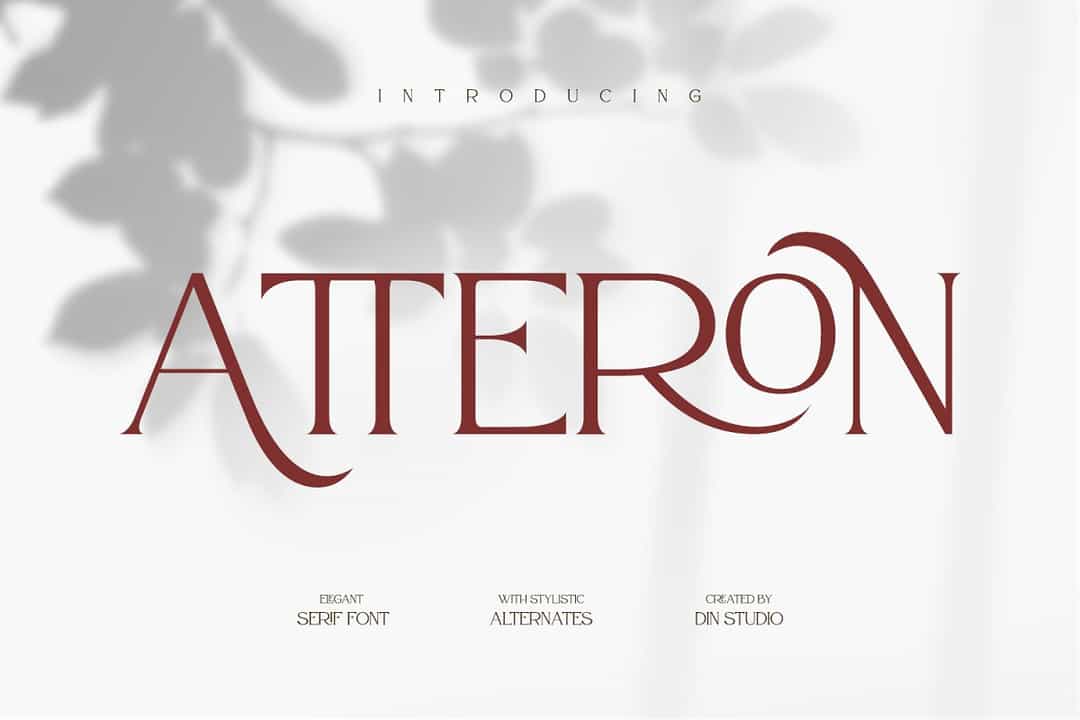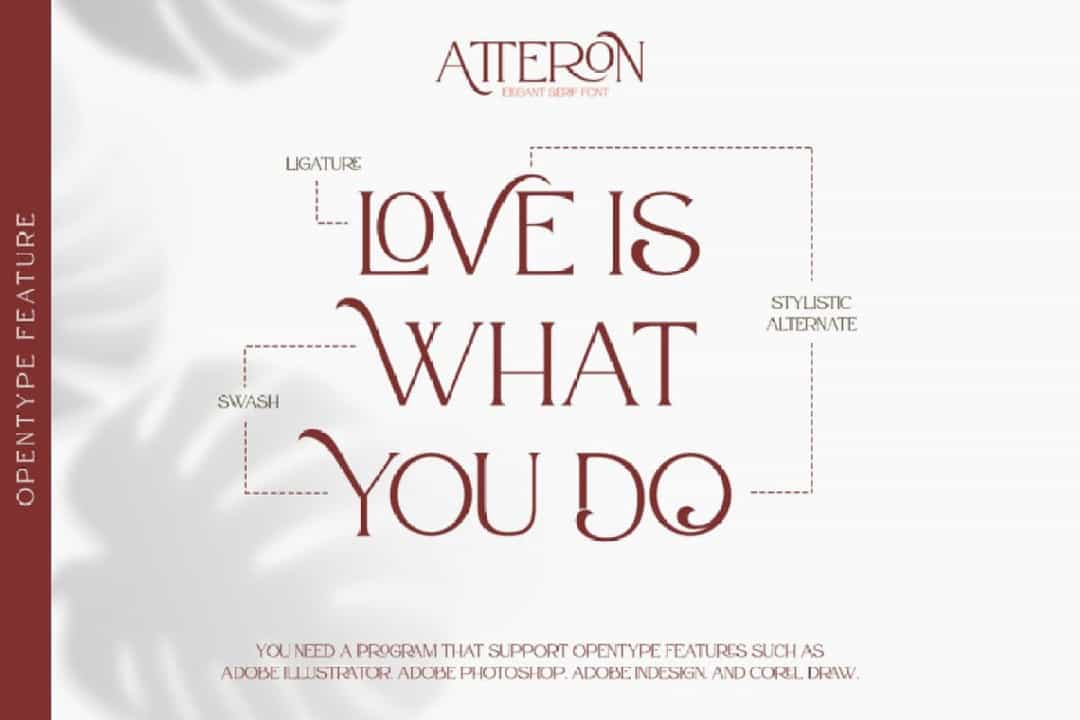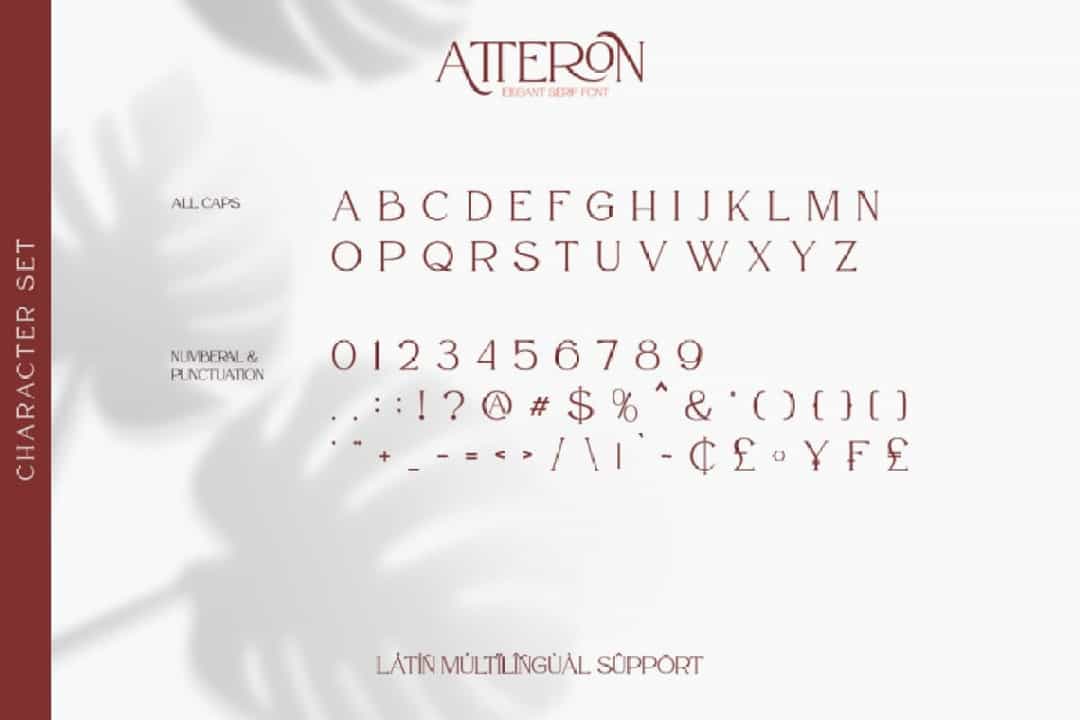
Atteron is an elegant serif typeface created for professional projects branding. This font was intended to stand out in headlines that require to stand out, along with formal forms like logos, branding or quotes – every letter offers an unique yet sophisticated appearance.